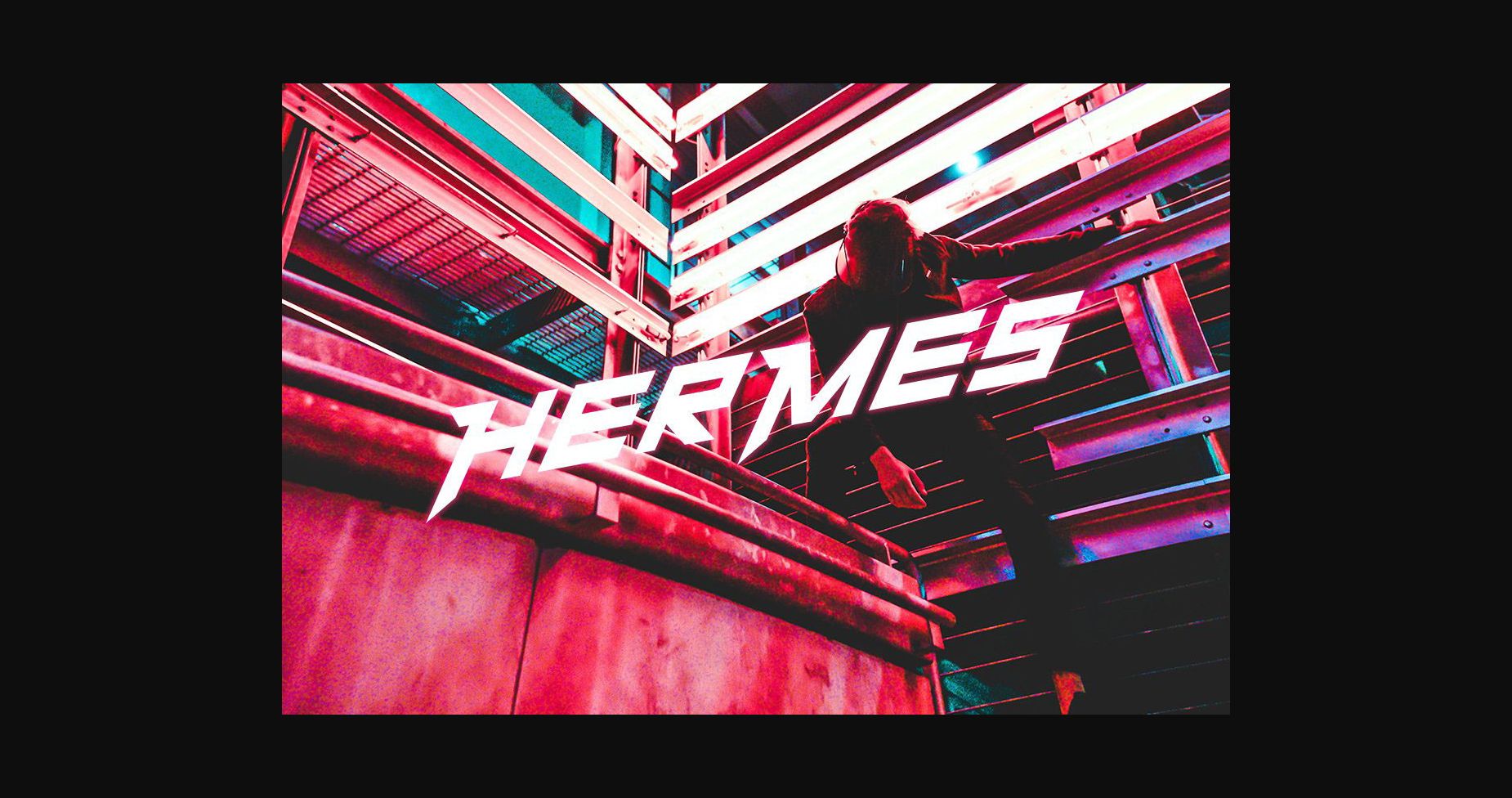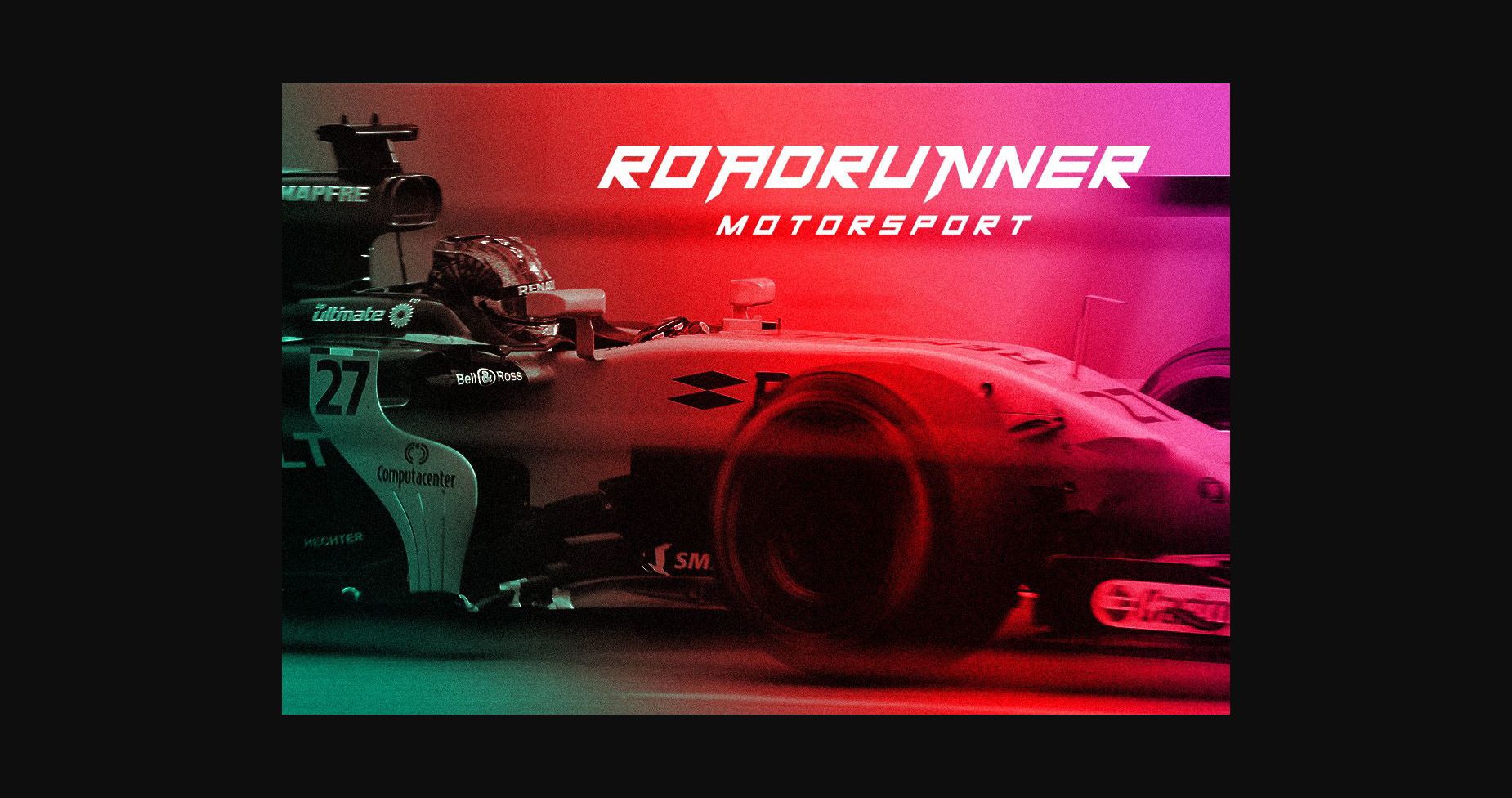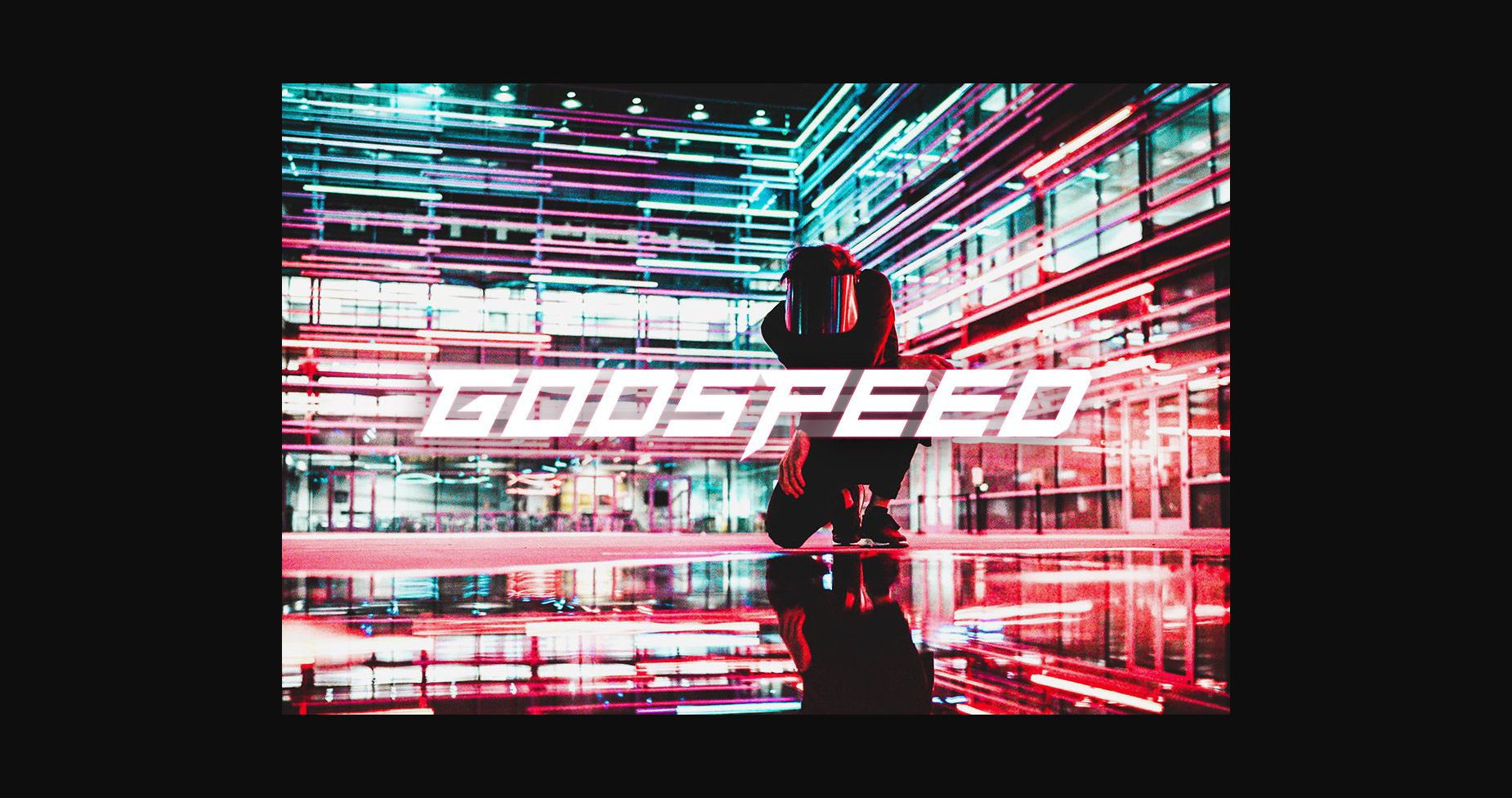
About Hermes Font
Hermes is a powerful sans-serif font that exudes a futuristic and cutting-edge vibe, featuring bold and geometric shapes that create a sense of strength and dominance. The minimalist design is perfectly balanced, creating a striking and impactful presence. This font is perfect for creating a sense of authority in branding materials, headlines, and editorial layouts.